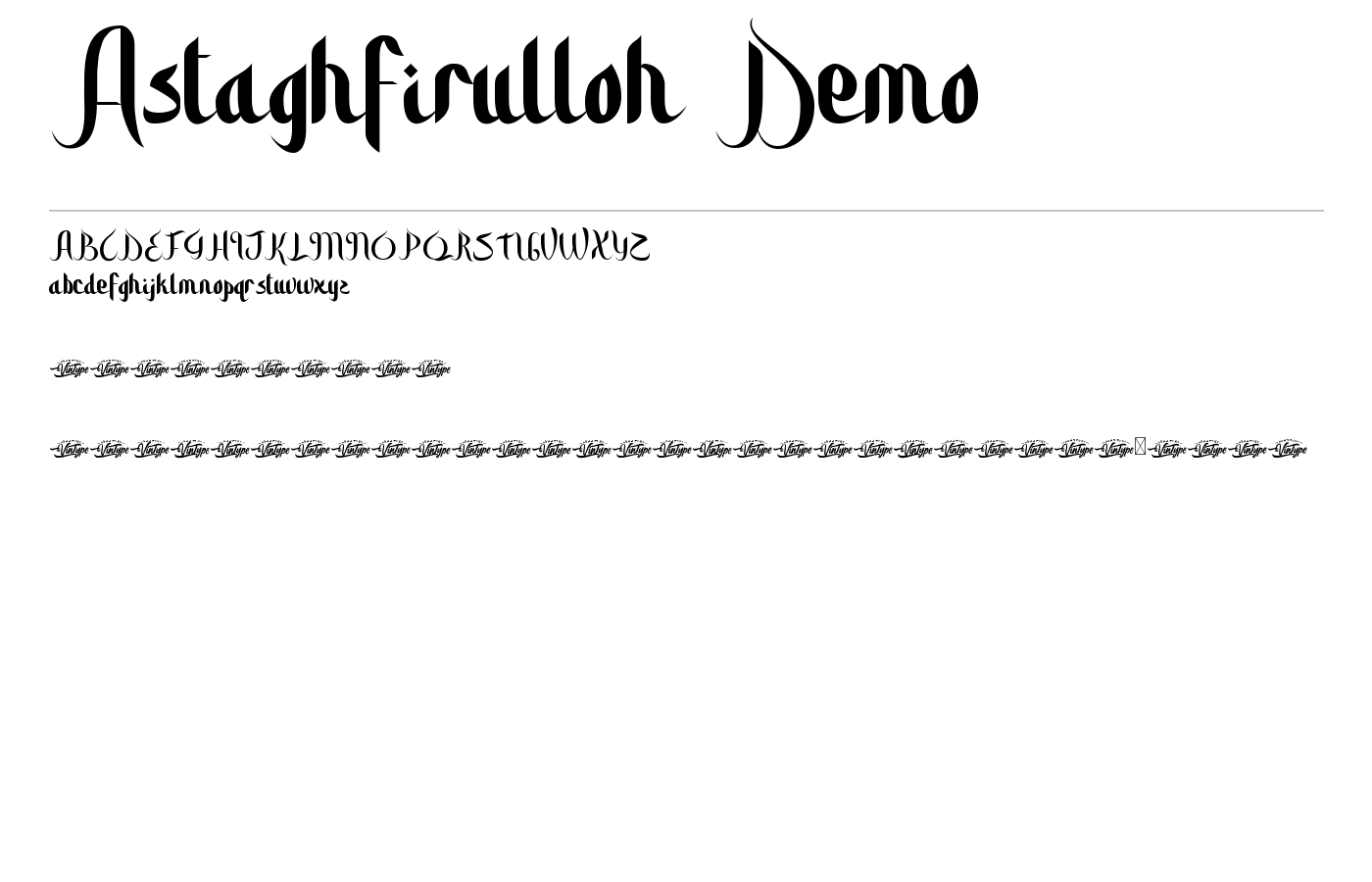
Astaghfirulloh Demo is a unique serif display font with elegant, narrow letterforms and a strong calligraphic influence, characterized by sharp strokes and distinctive flourishes. Its tall, condensed shapes and high contrast between thick and thin lines give it a sophisticated, vintage feel, making it ideal for logos, headlines, and branding projects that seek a refined yet artistic touch. This font works best in contexts where style and personality are key, such as luxury packaging, editorial designs, and decorative titles.
Astaghfirulloh Demo Font
About Astaghfirulloh Demo Font